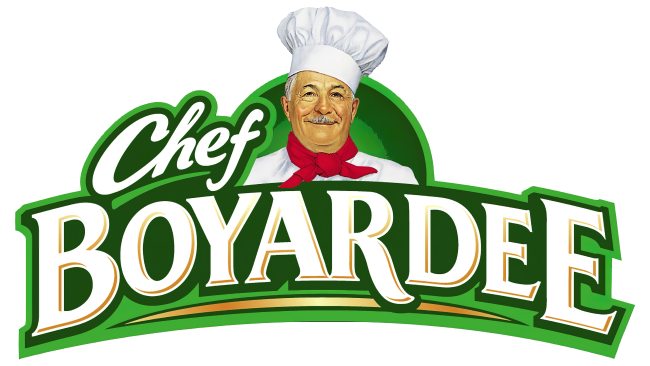
Chef Boyardee Font
Chef Boyardee font — most likely Friz Quadrata, with a similar alternative available — is the typography of a brand that has been selling the promise of home-cooked Italian comfort since Hector Boiardi founded it in 1928, and its warm, old-world serif character communicates that heritage with the same reliability as the product itself: you know exactly what you are getting, you have always liked it, and the typography is part of why. Friz Quadrata’s slightly rounded serifs and warm proportions sit between classical Roman authority and approachable friendliness, communicating quality without pretension — which is precisely the register required for a canned pasta brand whose target audience includes parents making weeknight dinners and anyone who grew up eating from those distinctive red-and-white cans. The freely available Chef Boyardee Font Alternative captures this nostalgic, warm-hearted serif tradition.